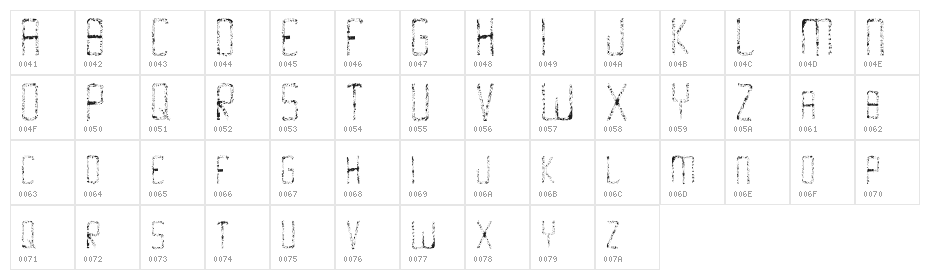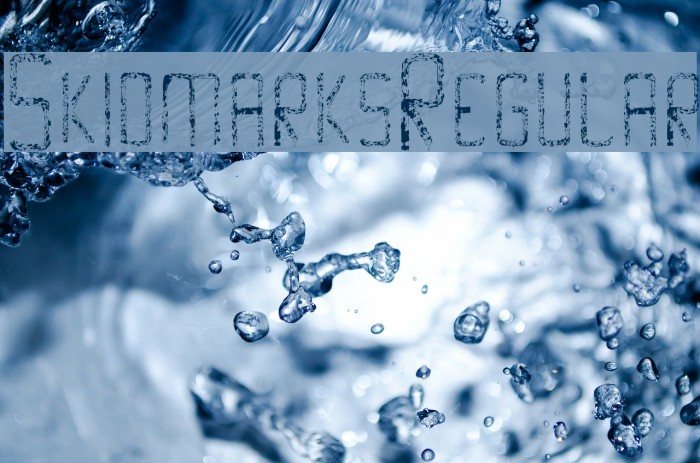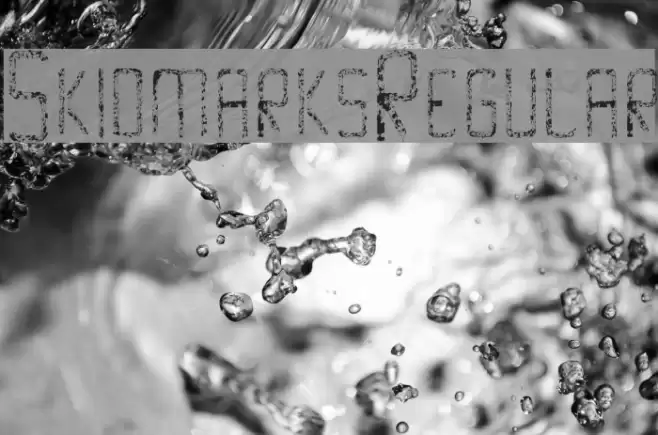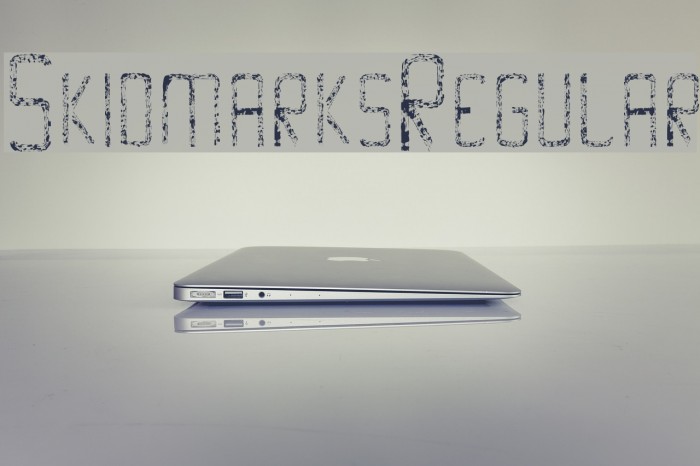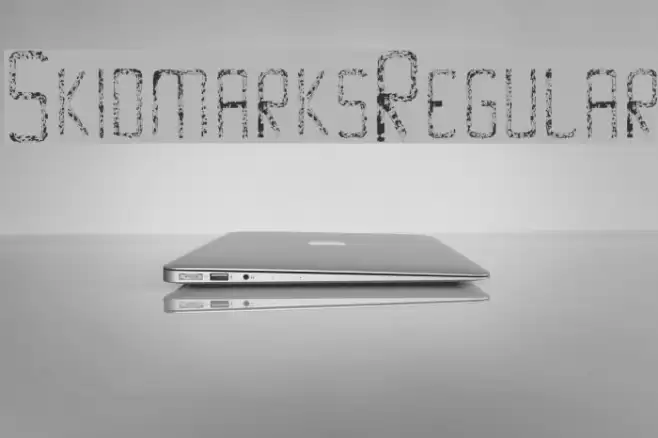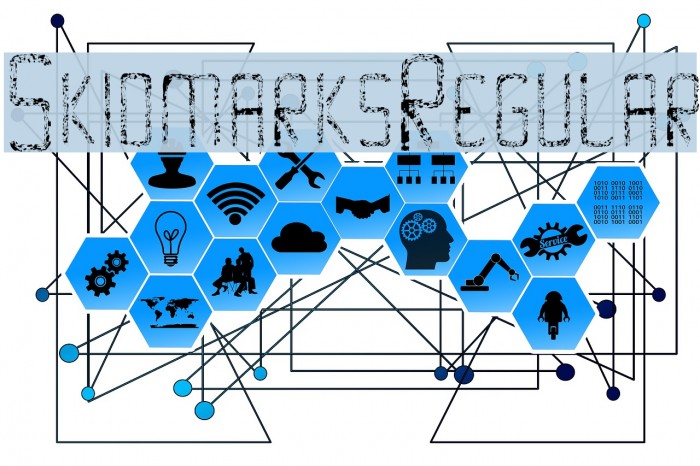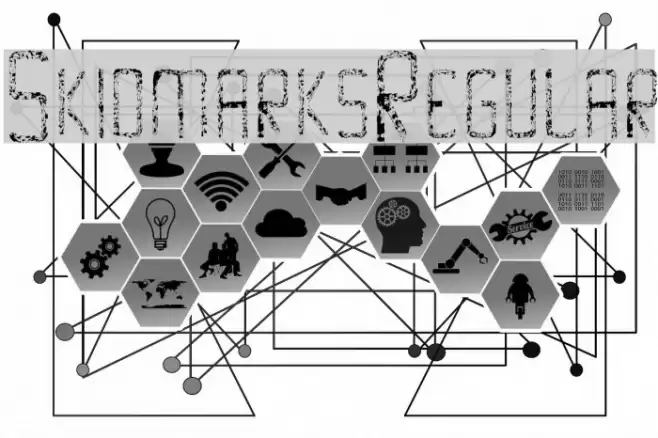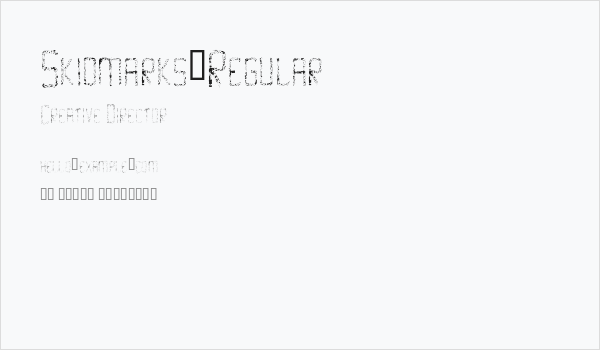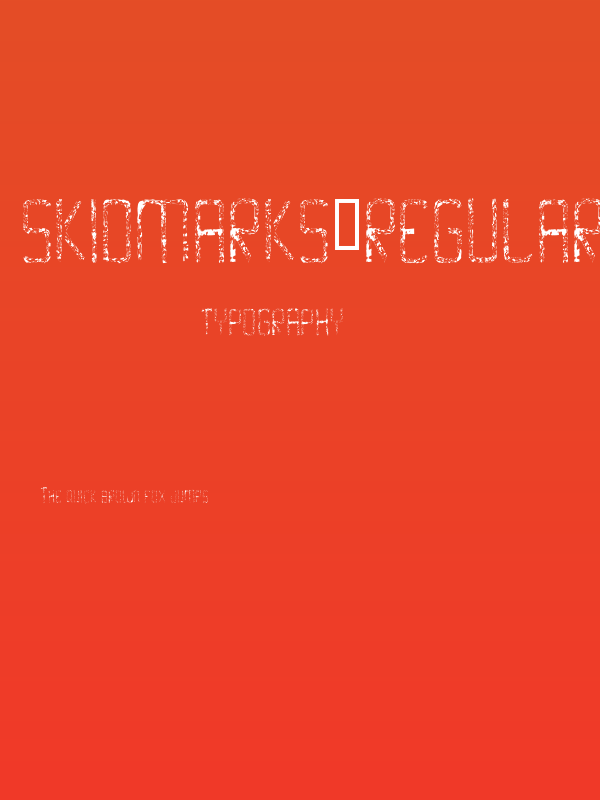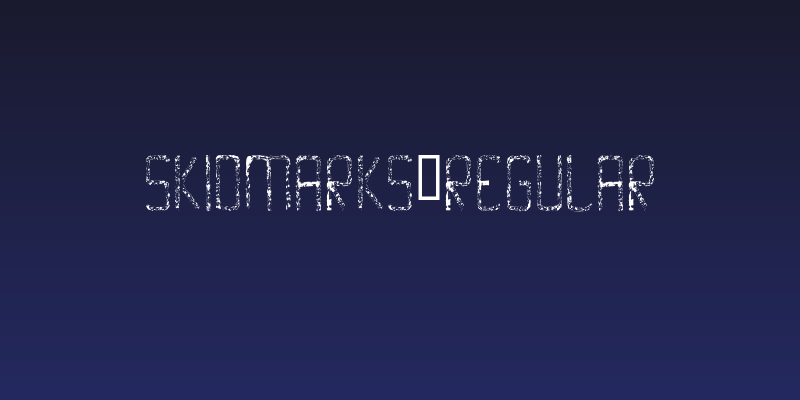
Skidmarks-Regular Font
Skidmarks-Regular Description
This font features a distressed, textured appearance reminiscent of skid marks, giving it a rugged and edgy look. The uppercase and lowercase letters maintain a consistent height, with a blocky, geometric structure. The texture adds a unique, worn effect, making each character appear as if it has been weathered over time. This style is particularly eye-catching and can add a gritty, urban feel to any design. The font's boldness and distinct texture make it stand out, while the geometric shapes ensure readability despite the distressed appearance.
| Overall Style | Urban, Edgy, Distressed |
| Proposed Projects | Ideal for projects requiring a gritty, edgy aesthetic, such as posters, album covers, or streetwear branding. |